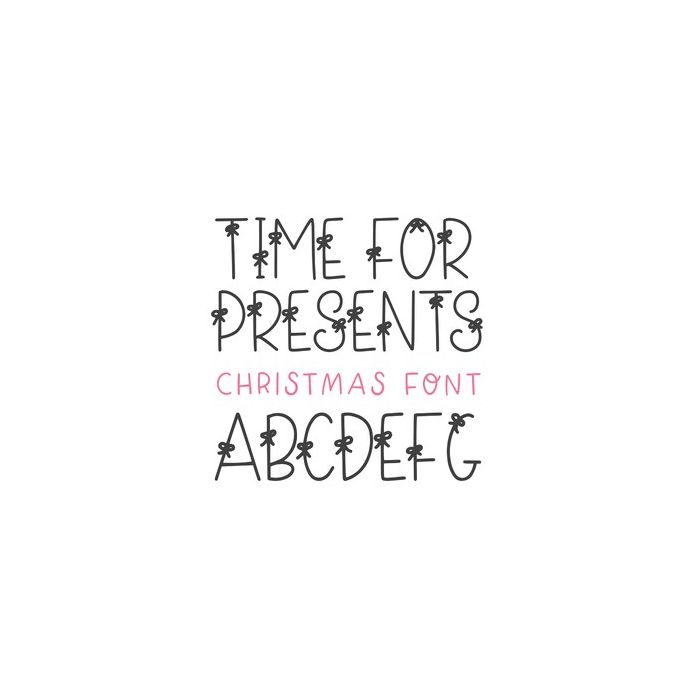
DTC Time For Presents Christmas Font
Time For Presents is a unique doodled Christmas gift font. The lowercase letters showcase plain letters without bows.